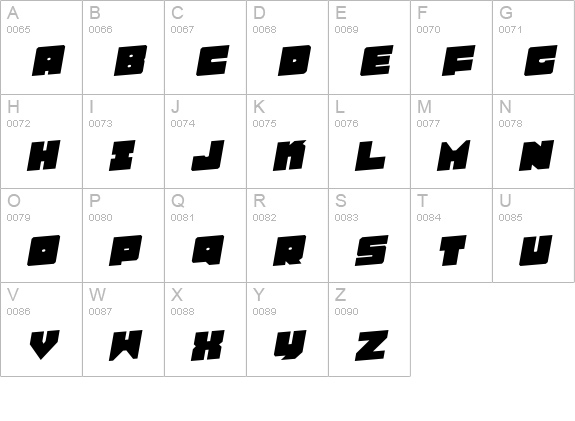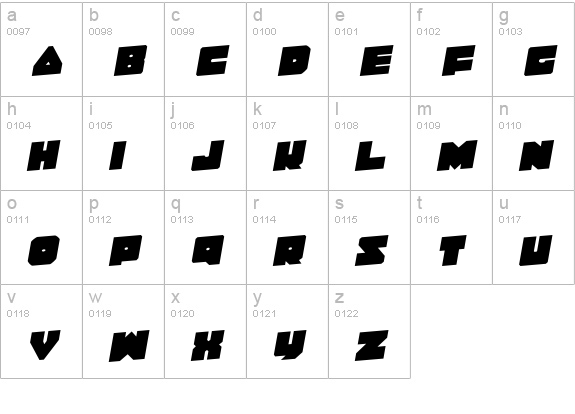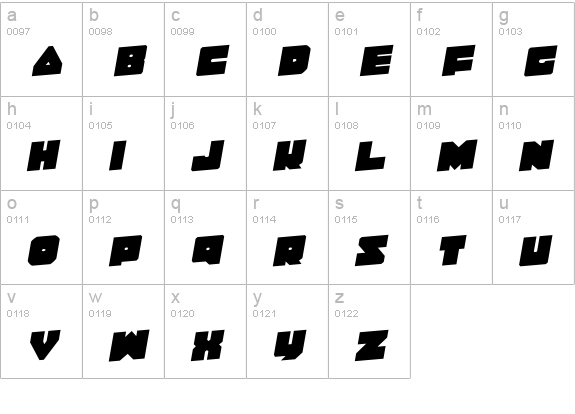
Lobo Tommy Rotalic font is a stylish and modern typeface that exudes elegance and sophistication. Its unique blend of sharp edges and flowing curves creates a captivating visual appeal that is perfect for a wide range of design projects. Whether you're working on branding, packaging, invitations, or any other creative endeavor, Lobo Tommy Rotalic font is sure to make a statement. The best part? Lobo Tommy Rotalic font is available for free download at FontsMarket.com. You can easily access this versatile font and use it in your projects without any cost. Don't miss out on the opportunity to enhance your designs with the charm and versatility of Lobo Tommy Rotalic font. Download it today and let your creativity shine!